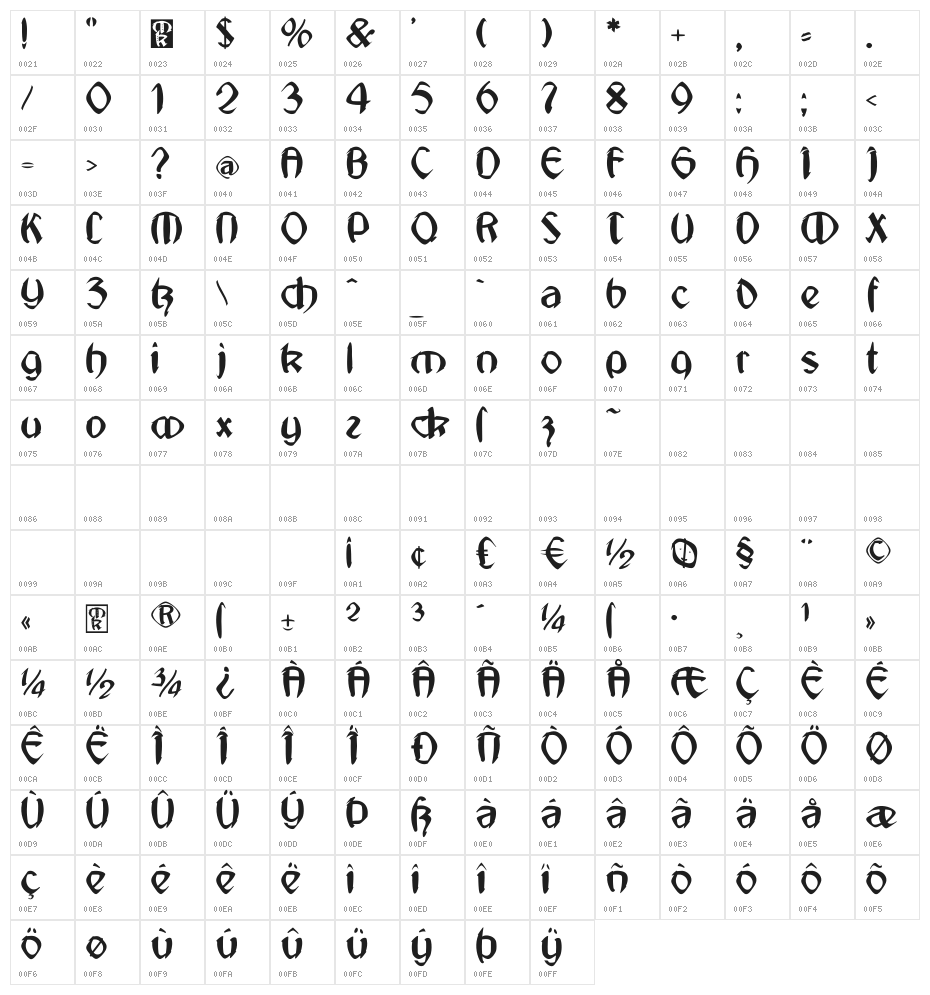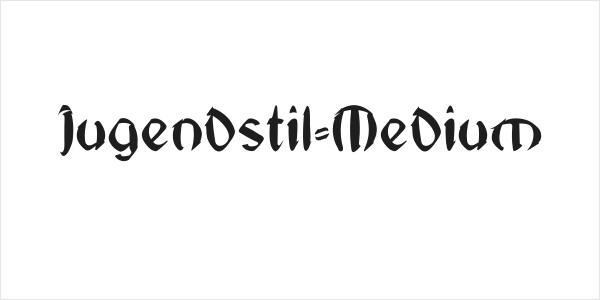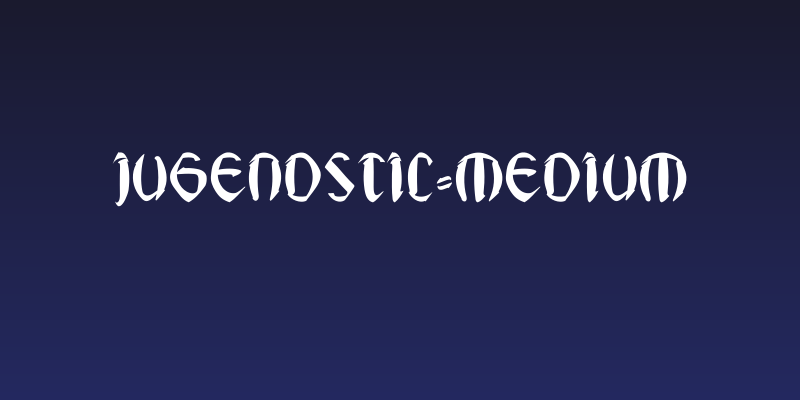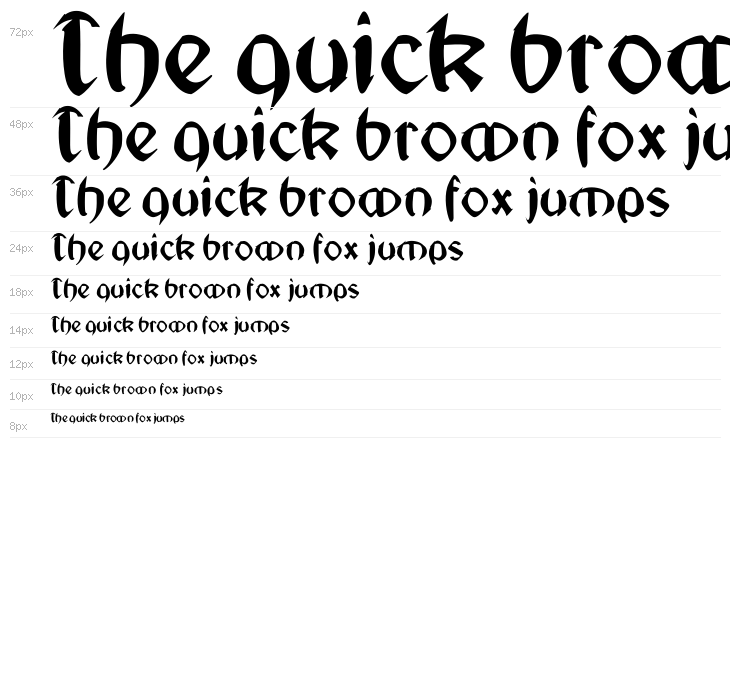
Jugendstil-Medium Font
Jugendstil-Medium Description
This font exhibits a distinctively bold and artistic style reminiscent of the Art Nouveau movement, characterized by its flowing, organic forms and intricate detailing. The uppercase letters are bold and have a strong presence, with unique curves and angles that give them a decorative flair. The lowercase letters maintain the same artistic style, offering a harmonious blend of elegance and readability. The numbers and special characters follow suit, with each symbol crafted to complement the overall aesthetic. This font's design is both striking and sophisticated, making it suitable for projects that require a touch of artistic elegance.
Overall StyleVintage
Proposed ProjectsIdeal for artistic posters, vintage-themed designs, branding for creative industries, and decorative invitations.